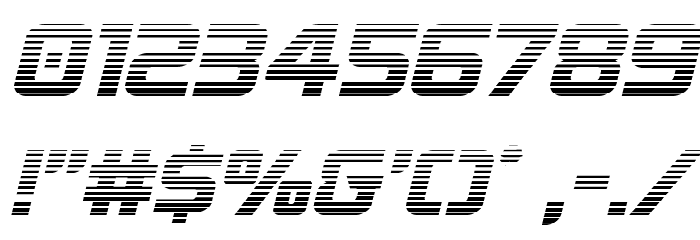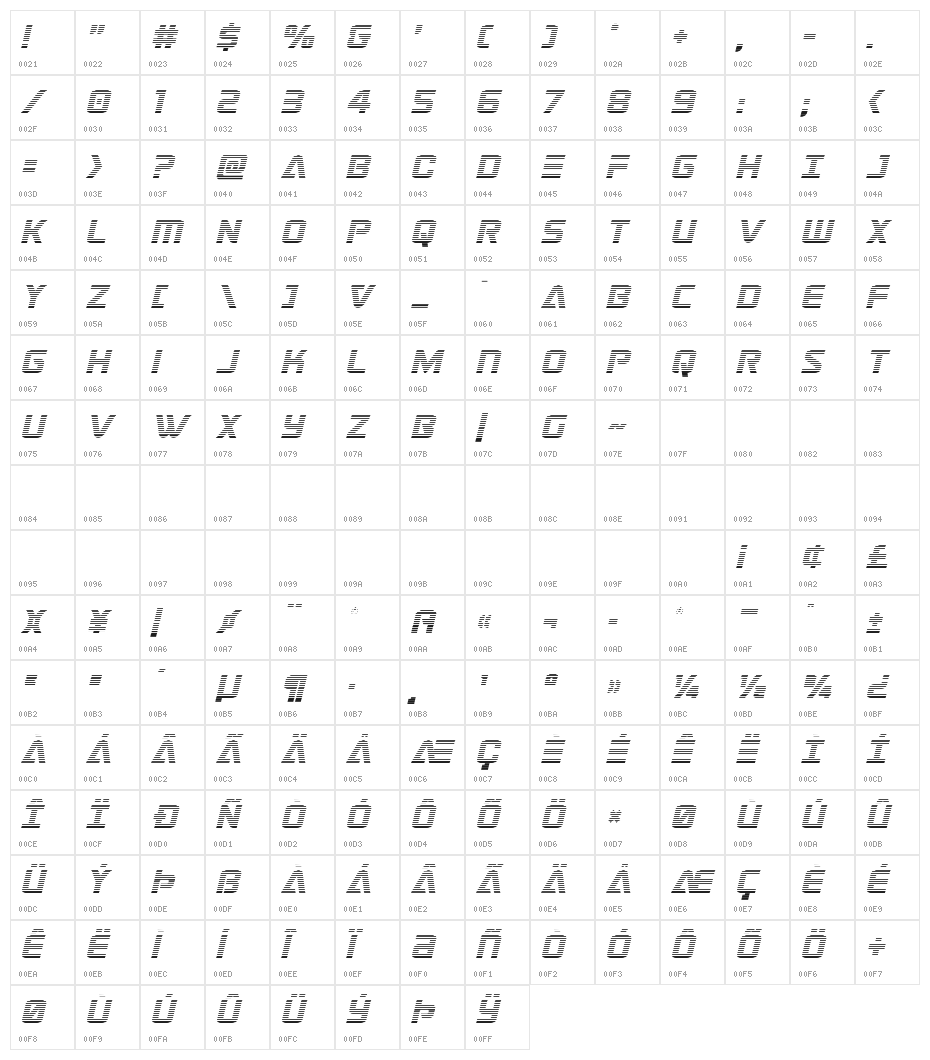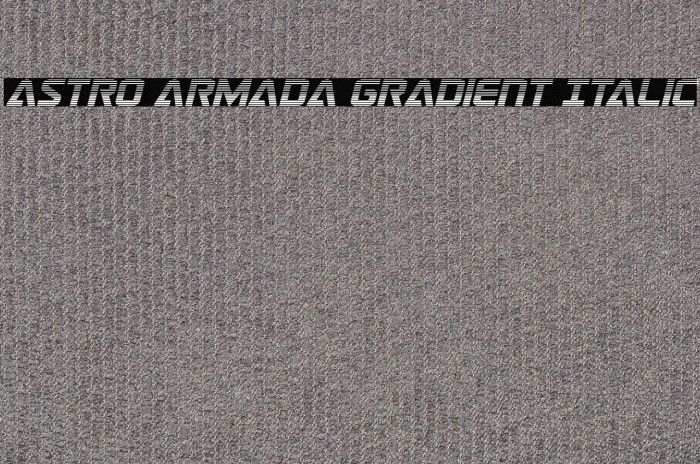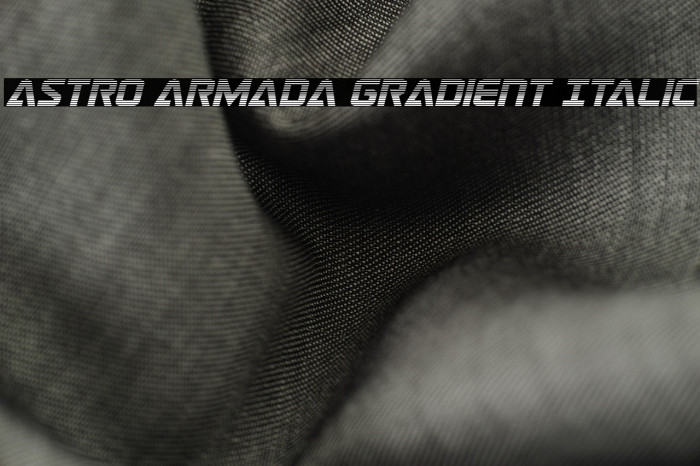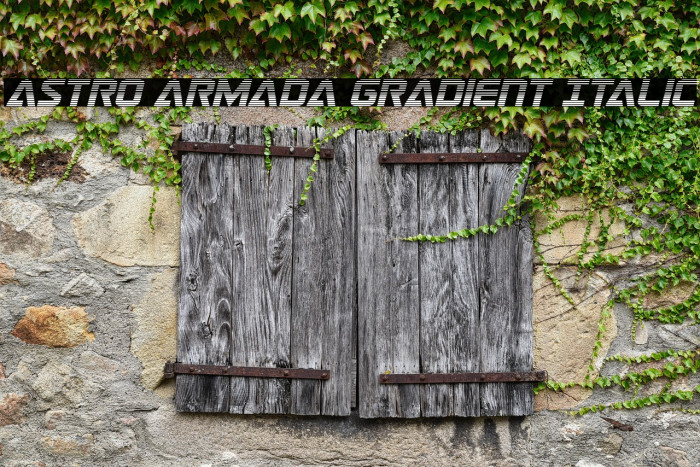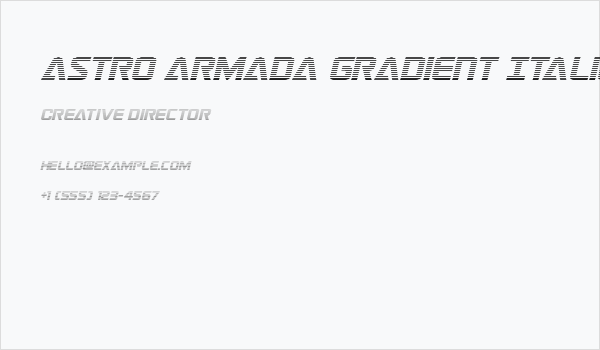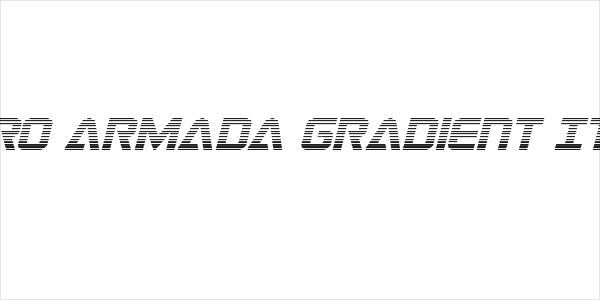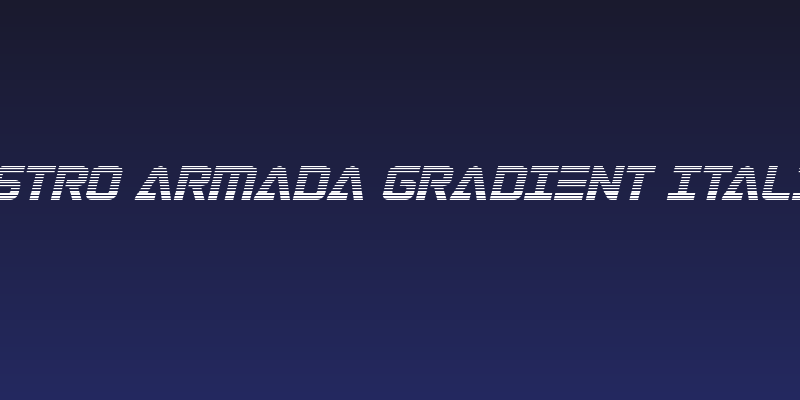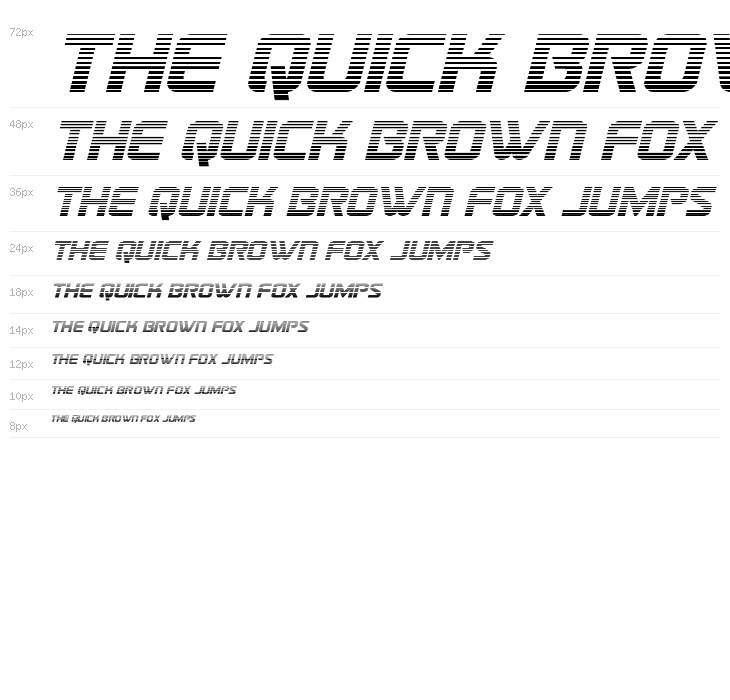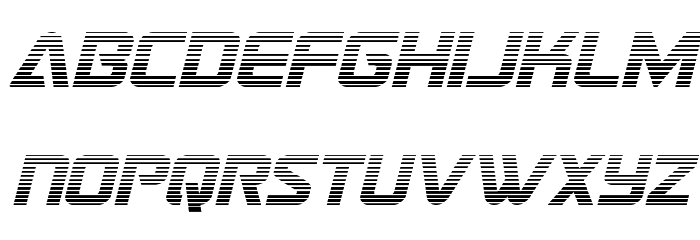
Astro Armada Gradient Italic Font
Astro Armada Gradient Italic Description
This font features a futuristic and dynamic design with a distinct gradient effect created by horizontal lines running through each character. The italicized style adds a sense of motion and speed, making it ideal for projects that require a modern and energetic look. The uppercase and lowercase letters, along with numbers and special characters, maintain a consistent and bold appearance. The unique line pattern within each character gives it a high-tech and digital feel, suitable for technology-themed designs.
Proposed ProjectsIdeal for sci-fi movie posters, tech company logos, video game titles, and futuristic event branding.